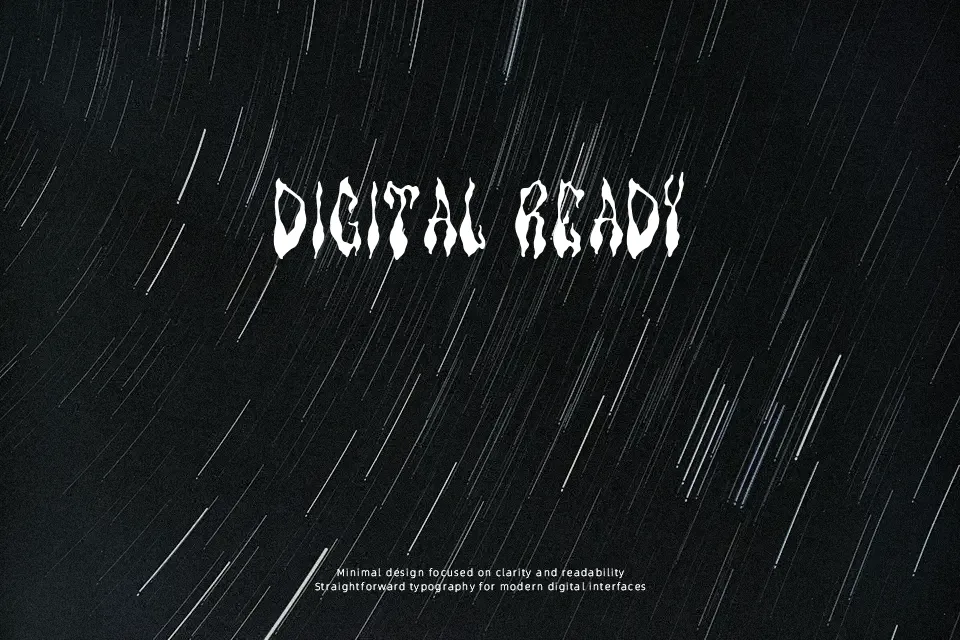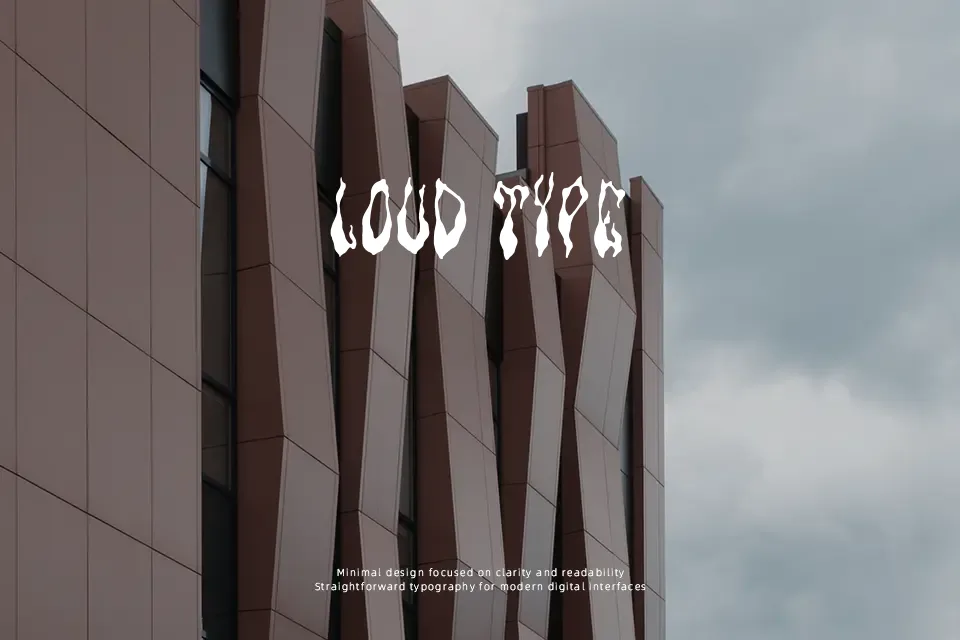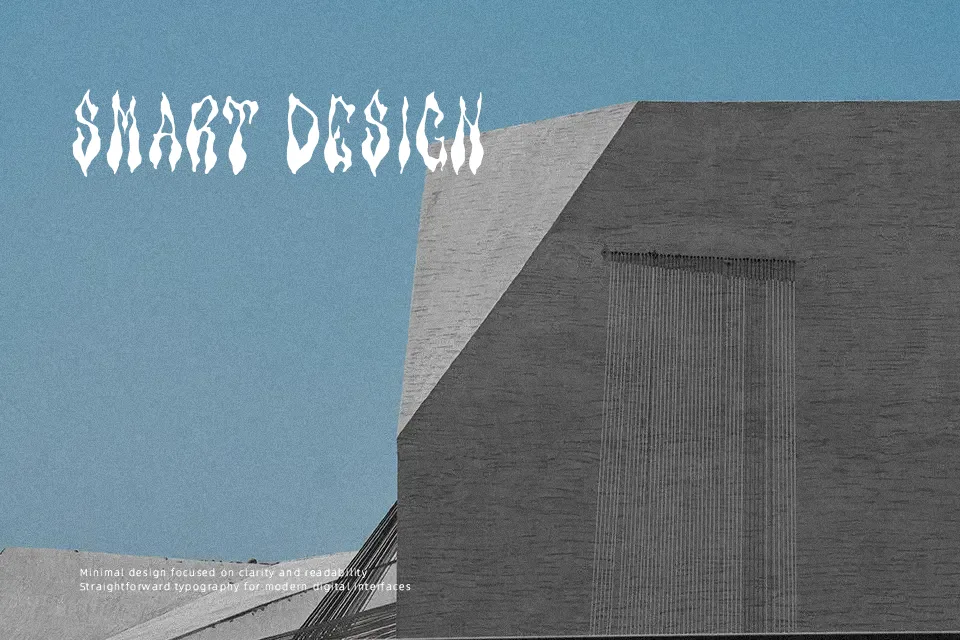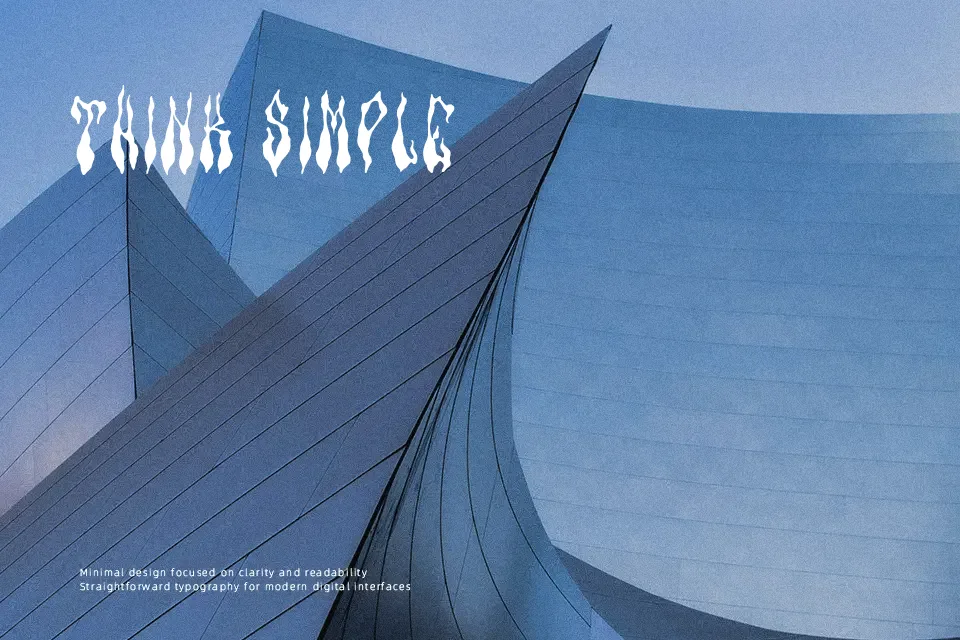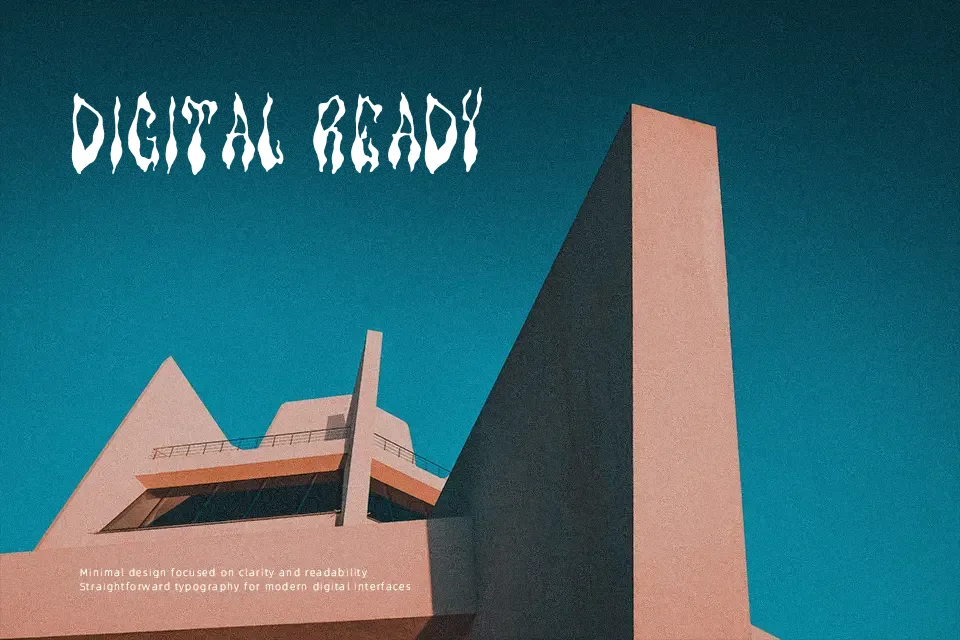
Barbeque Jr Font
Designed by Barbuh Q
The strokes on Barbeque Jr are thick and deliberately uneven, with irregular, flame-like serifs that push the letters into horror-display territory. It reads casual at a glance but carries an unsettling edge — something between a roadside BBQ sign and a haunted-house poster. That tension is exactly where it earns its value: event flyers, Halloween merch, horror game titles, and brewery labels that want a roughed-up identity. The character set is limited to 91 glyphs, which means multilingual or symbol-heavy layouts will hit a wall fast. Kerning is absent, so spacing between certain letter pairs may need manual adjustment before print or publication. Best used large; at small sizes, the irregular edges dissolve into noise rather than texture.
Best For:- Halloween event flyers and horror posters
– Grungy band or music merchandise headers
– Craft brewery or BBQ restaurant branding
– Horror game title screens or chapter headings
Not Ideal For:- Long-form body text or editorial copy
– Corporate branding or professional business materials
– Multilingual layouts (only 91 glyphs supported)
– Small-size applications where detail is lost
Perfect for branding, halloween, and logo, with a bold and decorative style.